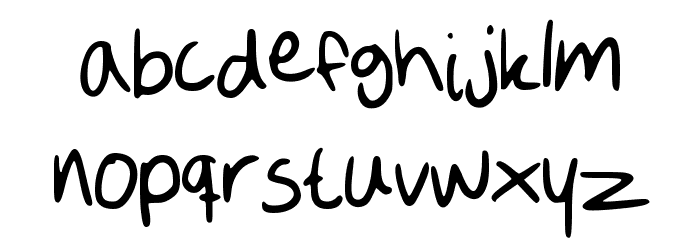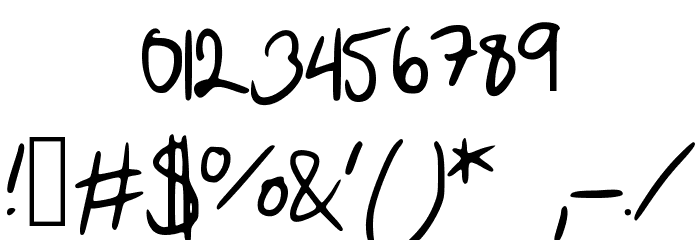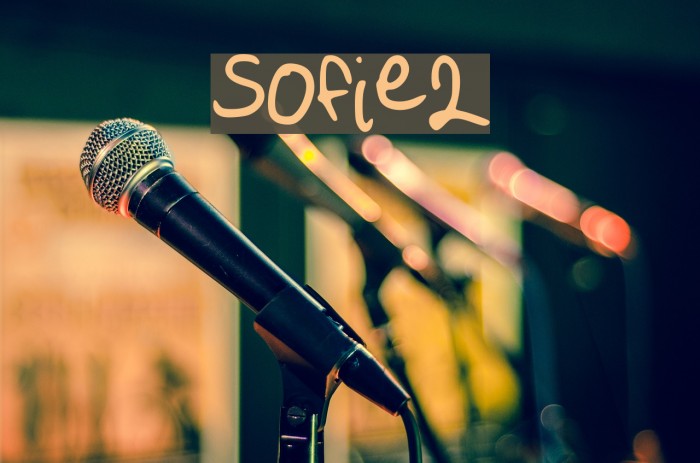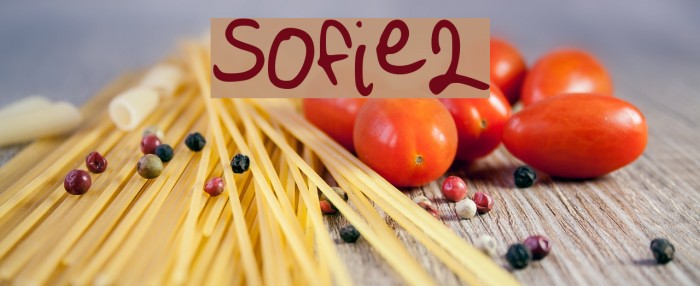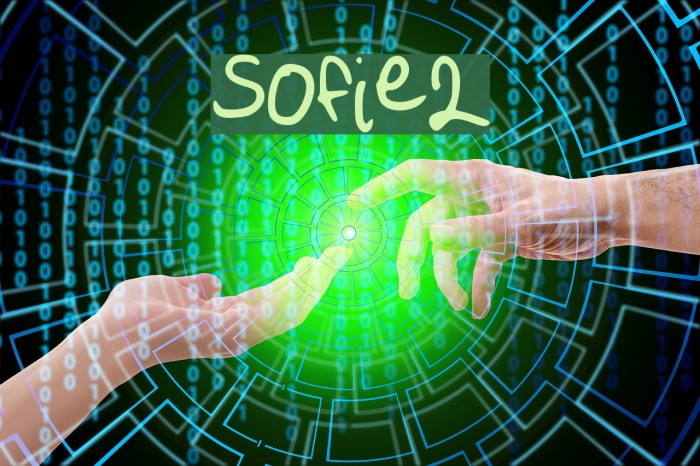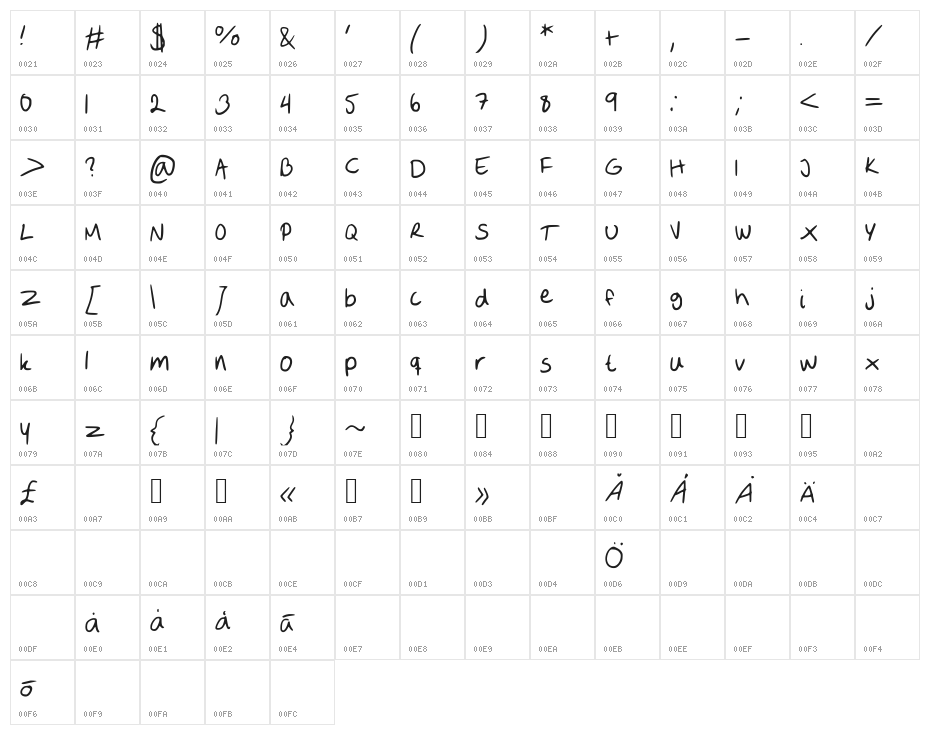
Sofie2 Font
This font features a casual, handwritten style with a playful and informal appearance. The characters are slightly slanted, giving a dynamic and lively feel. The strokes are smooth and consistent, with rounded edges that enhance its friendly and approachable look. It maintains a uniform thickness throughout, which contributes to its legibility. The spacing between characters is balanced, ensuring readability while preserving the font's relaxed aesthetic. This style is versatile, suitable for projects that require a personal touch or a creative flair.
A casual, handwritten font with a playful and informal style.
- Proposed Projects: Ideal for greeting cards, personal blogs, creative invitations, and informal branding.
- Overall Style: Casual
- Use Case: Headlines, Logos, Informal text